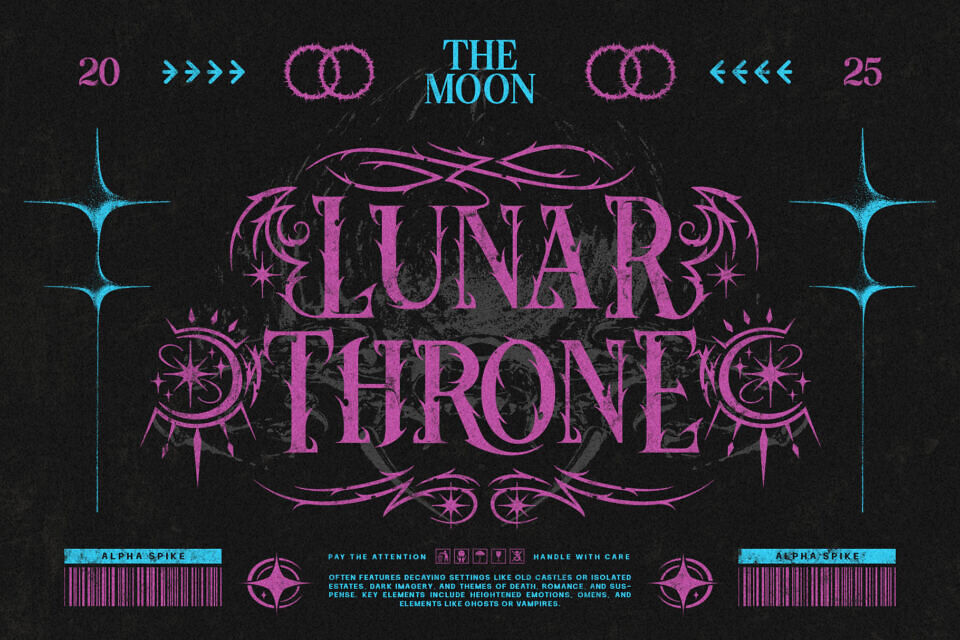
Alpha Spike Font
Unleash the beast within your designs with Alpha Spike, a typeface that bridges the gap between ancient darkness and futuristic aggression.
Inspired by the fantastical silhouettes of dragon scales and the feral sharpness of wolf fangs, Alpha Spike is not merely a font—it is a visual weapon. This “Neo-Gothic” Blackletter style features unique, flame-like edges and razor-sharp terminals that command attention immediately. It captures the essence of mystery, rebellion, and raw power.
Whether you are crafting a logo for a modern metal band, designing high-end streetwear merchandise, or creating a poster for a dark fantasy RPG, Alpha Spike delivers a look that is both majestic and intimidating.